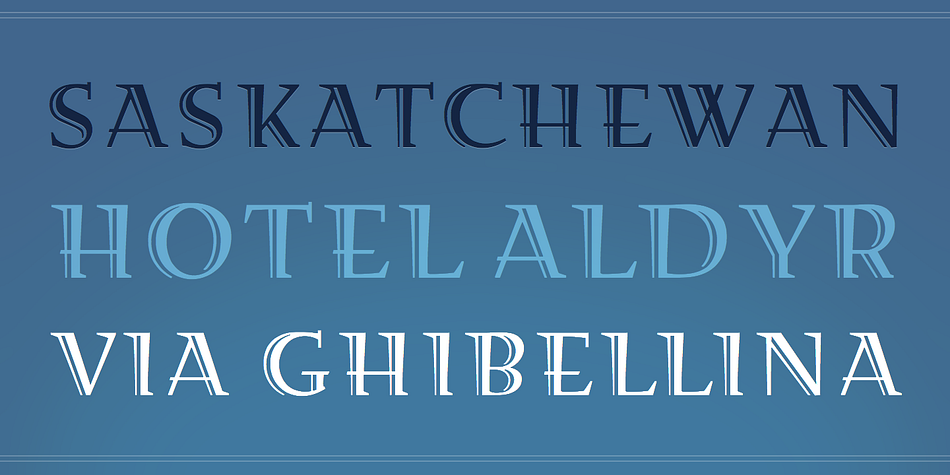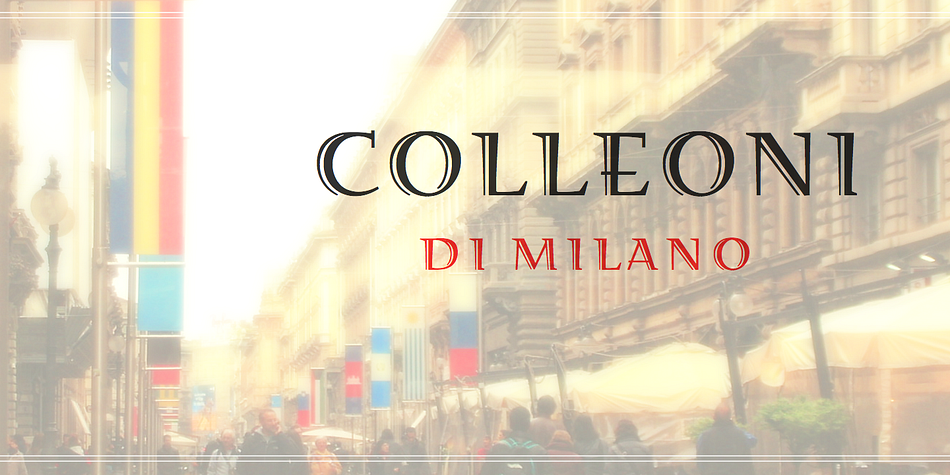
FEHLIAN
Designed by Andreas Stötzner, FEHLIAN is a art deco font family. This typeface has three styles and was published by Andreas Stötzner.
Fehlian is a sturdy yet sophisticated Art Deco style Roman semi-serif. It is an excellent choice for titlings, headlines, labels, stationary, shopfronts and any other display usage which needs to be typographically furnished with something special.
Moreover, besides the plain Fehlian font you have the option of yet another two wonderfully decorated versions which lend even more beauty to your designs.
Note that Fehlian is a capitals-only product. It has no lowercase but the uppercase is completed for multilingual usage and supports every Euro-Latin language.